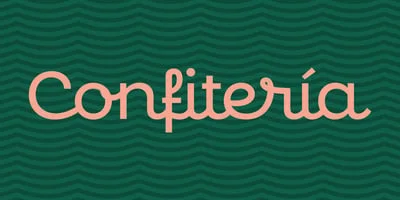
Confitería Font
Confitería Font is ideal for bakery logos, pastry shop branding, confectionery packaging, dessert menu designs, candy store signage, sweet treat marketing materials, artisan chocolate labels, and gourmet patisserie promotions. This delectable typeface brings European elegance and confectionery artistry to any design project celebrating sweet indulgences and culinary craftsmanship.
What makes Confitería Font exciting is its perfect capture of European confectionery tradition combined with contemporary sophistication that evokes the enchanting atmosphere of classic Parisian patisseries and artisan sweet shops. The elegant letterforms feature delicate curves and refined flourishes that create an irresistibly charming appearance. Each character radiates sweetness and craftsmanship, making it the perfect choice for brands that celebrate the art of confectionery and gourmet dessert creation.
The Confitería Font family typically includes regular and bold weights with complete uppercase and lowercase letters, numbers, punctuation marks, and special characters. Many versions feature additional decorative swashes, ornamental elements, and sweet-themed symbols that enhance the confectionery aesthetic and provide creative flexibility for bakery and dessert-focused design applications.
Whether you're developing artisan bakery brands or creating gourmet dessert campaigns, Confitería Font offers unlimited potential for sweet-themed projects. This enchanting typography choice transforms ordinary text into delicious visual experiences that resonate with audiences who appreciate fine confectionery and culinary artistry. The font's elegant nature ensures exceptional appeal across various sweet applications while maintaining its distinctive confectionery character that makes every design project feel like a visit to the world's most charming European sweet shop.